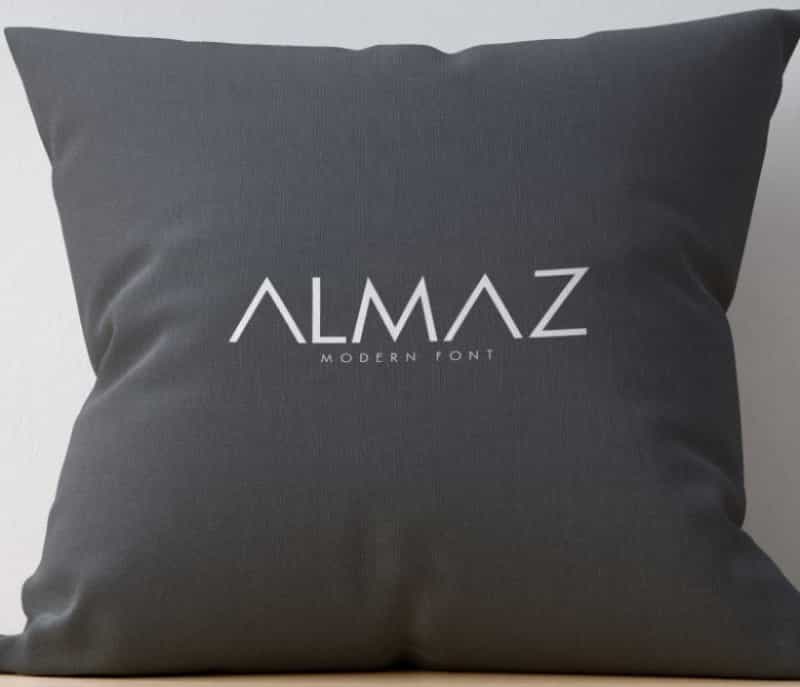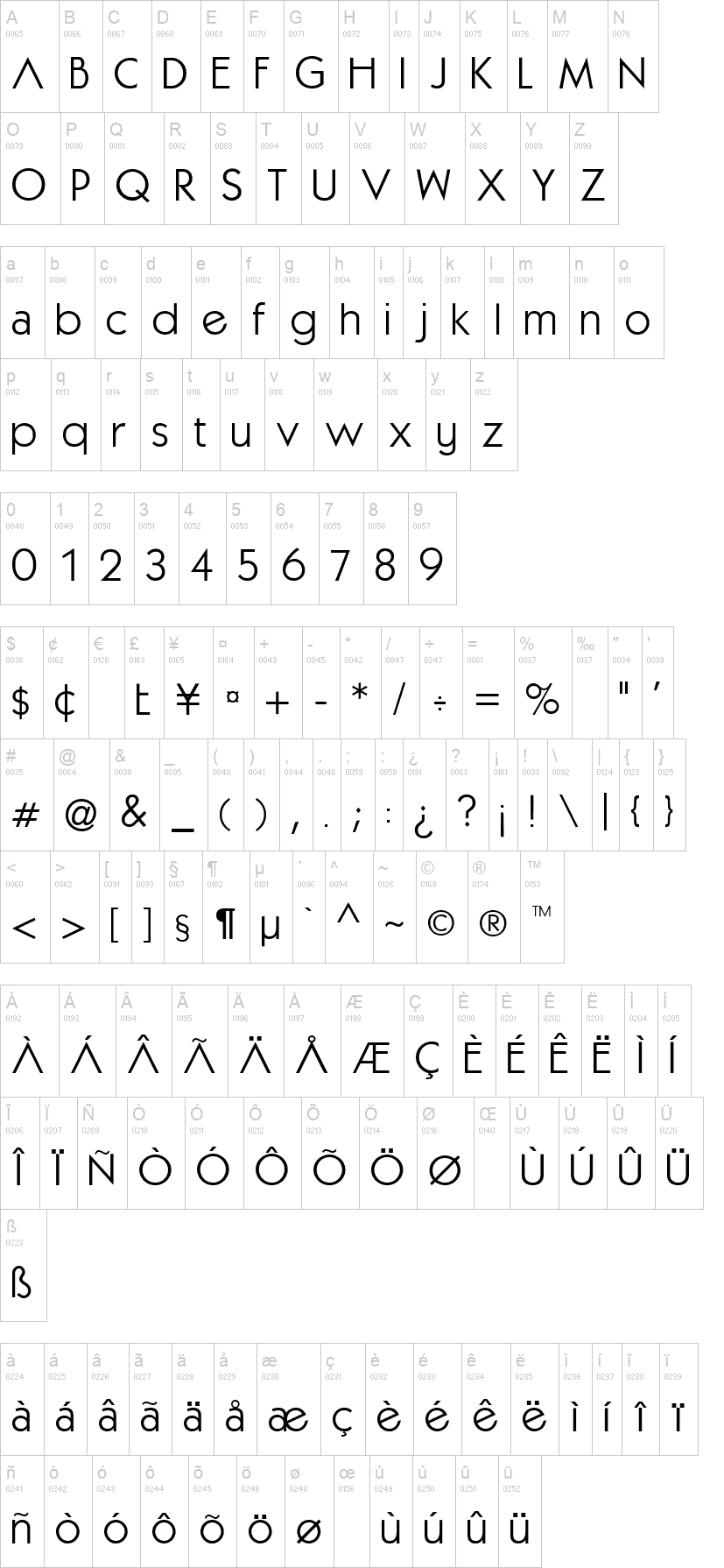
Almaz is a very graceful sans serif font that is both cute and sensual and has the appearance of sharpened lines and smooth edges. Ideal for weddings, designs, quotes, printing of signs and many other purposes. Being available in different weights, this font can be perfect for branding and for the web, besides the condensed spacing, it is quite striking!